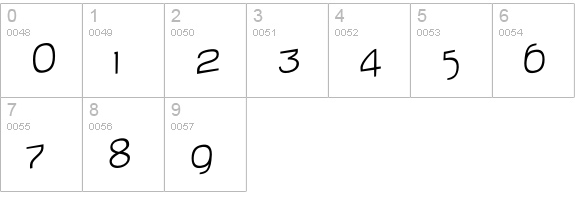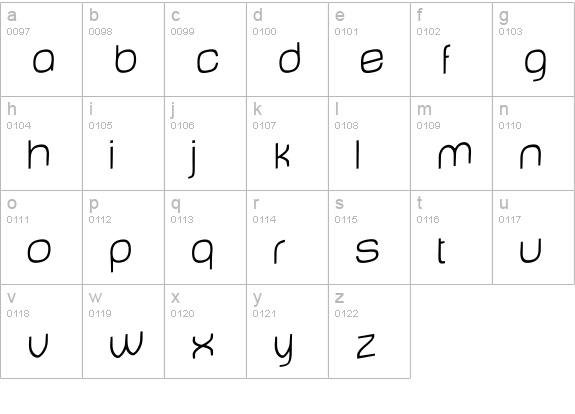
Introducing BabyMineThinJumping, a delightful and playful font that will add a touch of charm to any project. This font is the epitome of cuteness, with its thin and delicate letterforms that exude a sense of youthful energy. Perfect for children's books, nursery decorations, invitations, and more, BabyMineThinJumping will bring a sense of wonder and joy to your designs. Its bouncy and lively nature is sure to captivate both children and adults alike. Not only does BabyMineThinJumping offer a visually pleasing aesthetic, but it is also incredibly versatile. Its thin strokes make it ideal for pairing with other fonts, allowing you to create dynamic and eye-catching typography combinations. Whether you're looking to create a whimsical headline or a charming paragraph of text, this font has got you covered. What's even better is that BabyMineThinJumping is available for free download at FontsMarket.com. Yes, you read that right - completely free! Now you can bring this delightful font into your design arsenal without breaking the bank. Simply head over to FontsMarket.com, and with just a few clicks, you'll have access to this font's full potential. So why wait? Let your creativity soar with BabyMineThinJumping. Download it today and watch as your designs come to life with a touch of whimsy and playfulness.